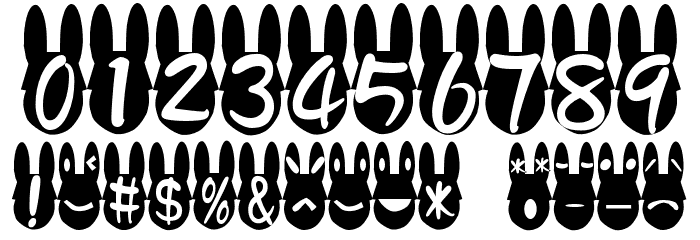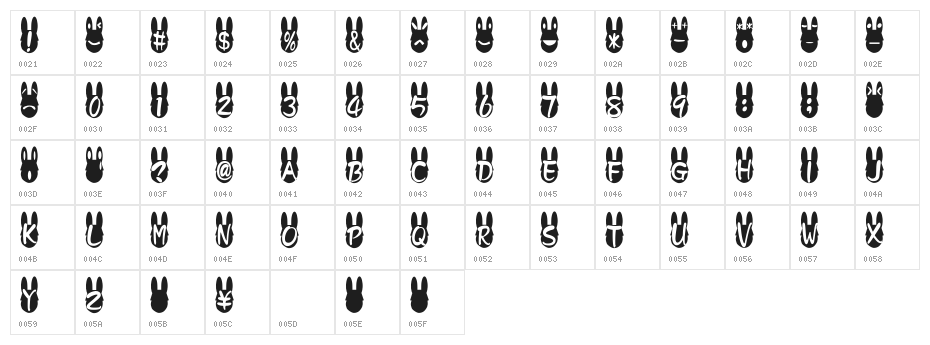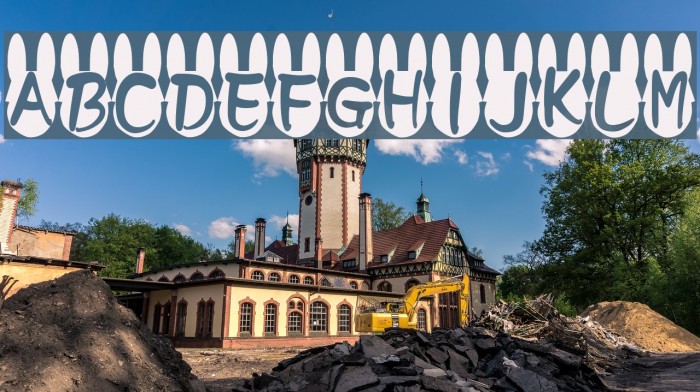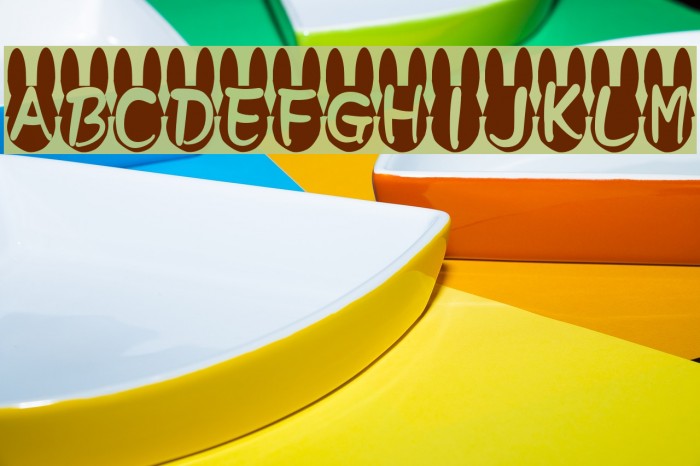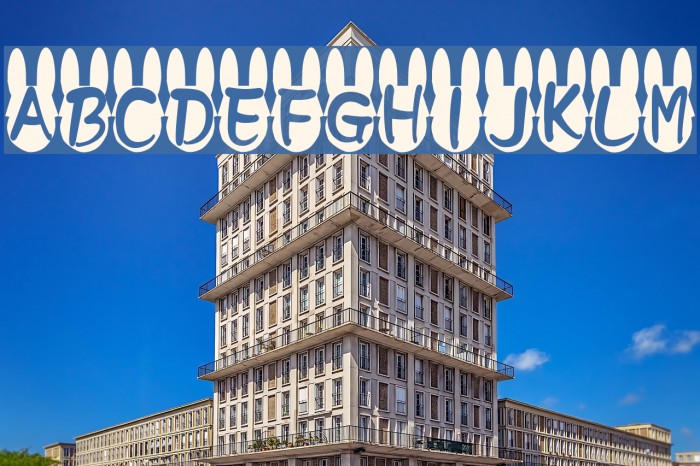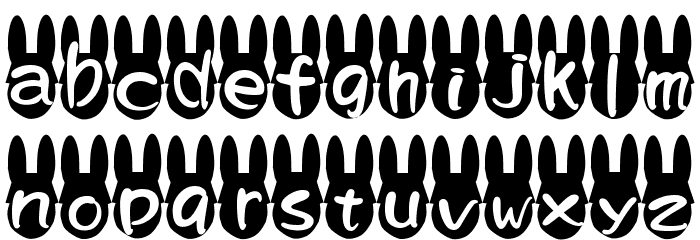
kerorin Font
kerorin Description
This playful and whimsical font features bold, rounded characters with a unique shadow effect that adds depth and dimension. The letters are designed with a smooth, flowing style that gives a sense of movement and energy. The font includes both uppercase and lowercase letters, numbers, and a variety of special characters. Its distinct style makes it stand out, perfect for creative and fun projects. The consistent stroke width and rounded edges contribute to its friendly and approachable appearance, making it suitable for a wide range of applications.
| Proposed Projects | Ideal for children's books, playful branding, posters, and greeting cards. |